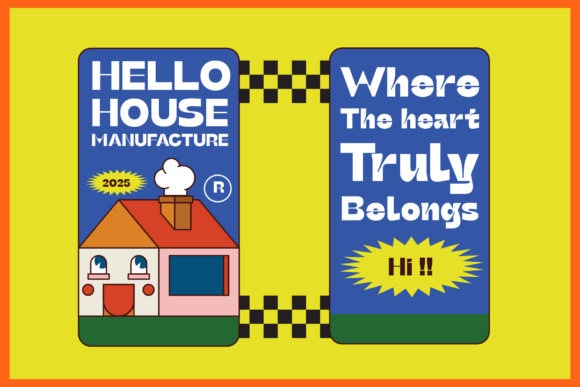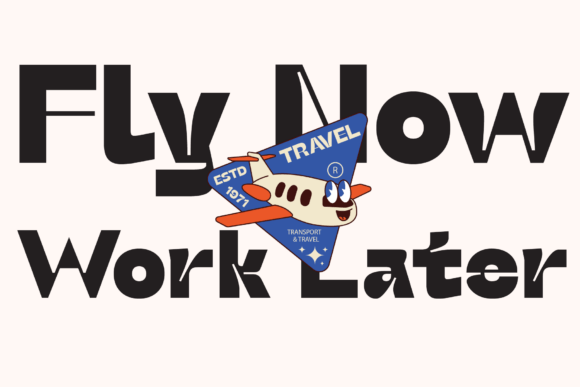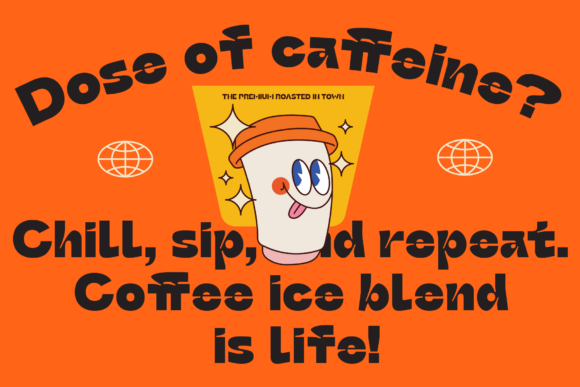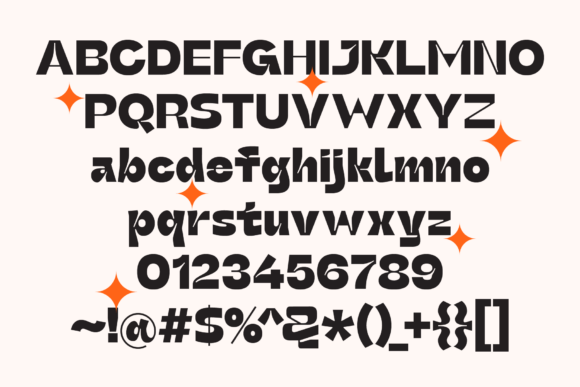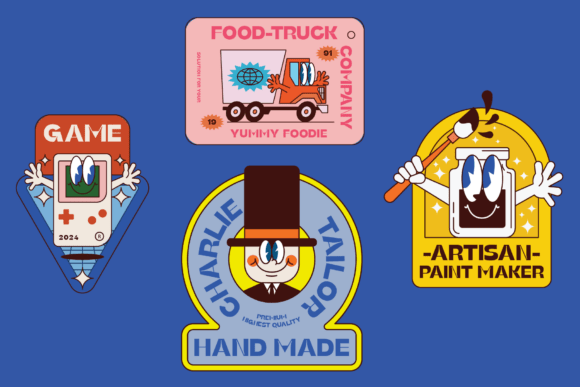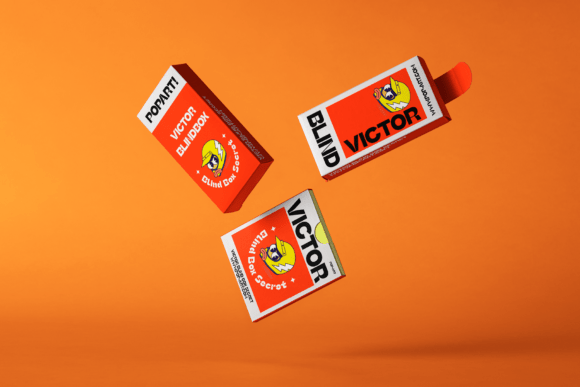
Introduction to Popart Pixel Font
Popart Pixel is a bold sans serif typeface designed with striking thickness and large ink traps, giving it a unique and recognizable character.
Inspired by the vibrant aesthetics of Pop Art, this font embodies a playful, daring, and expressive spiritโperfect for designs that demand attention With its strong letterforms and solid geometric structure, Popart Pixel delivers a futuristic yet retro feel, making it ideal for branding, posters, headlines, and various creative projects.
Key Features of Popart Pixel Font
Why Choose Popart Pixel Font?